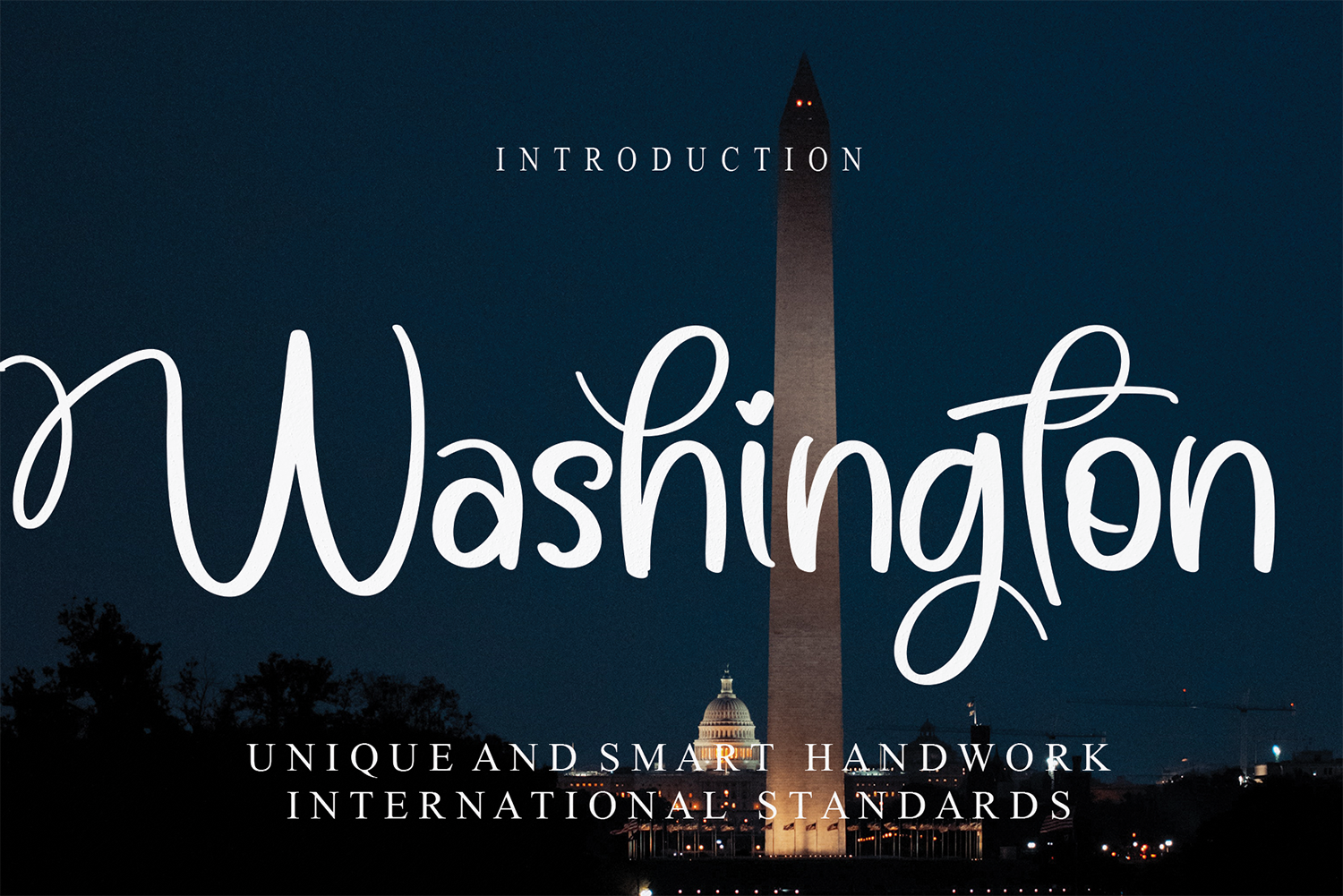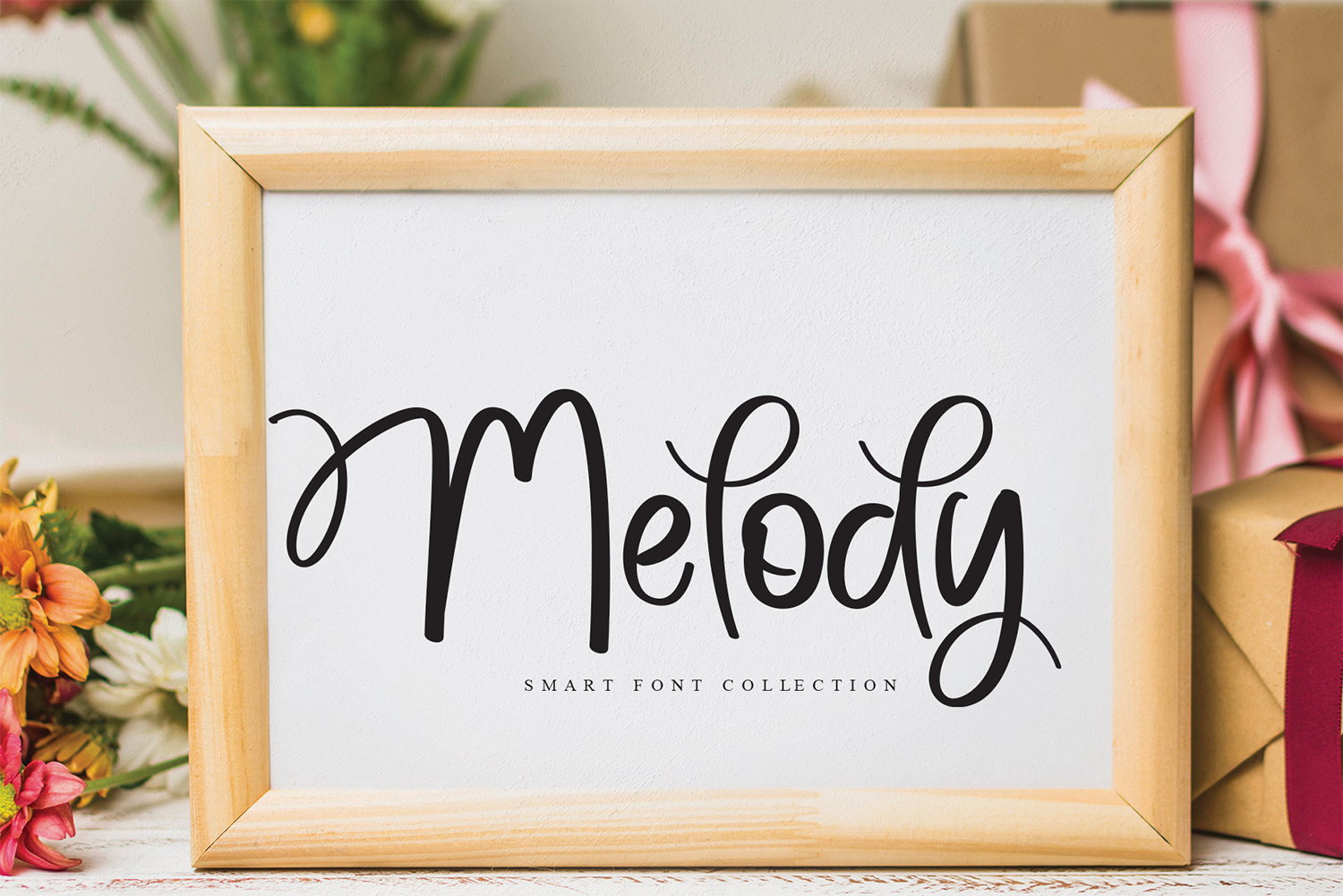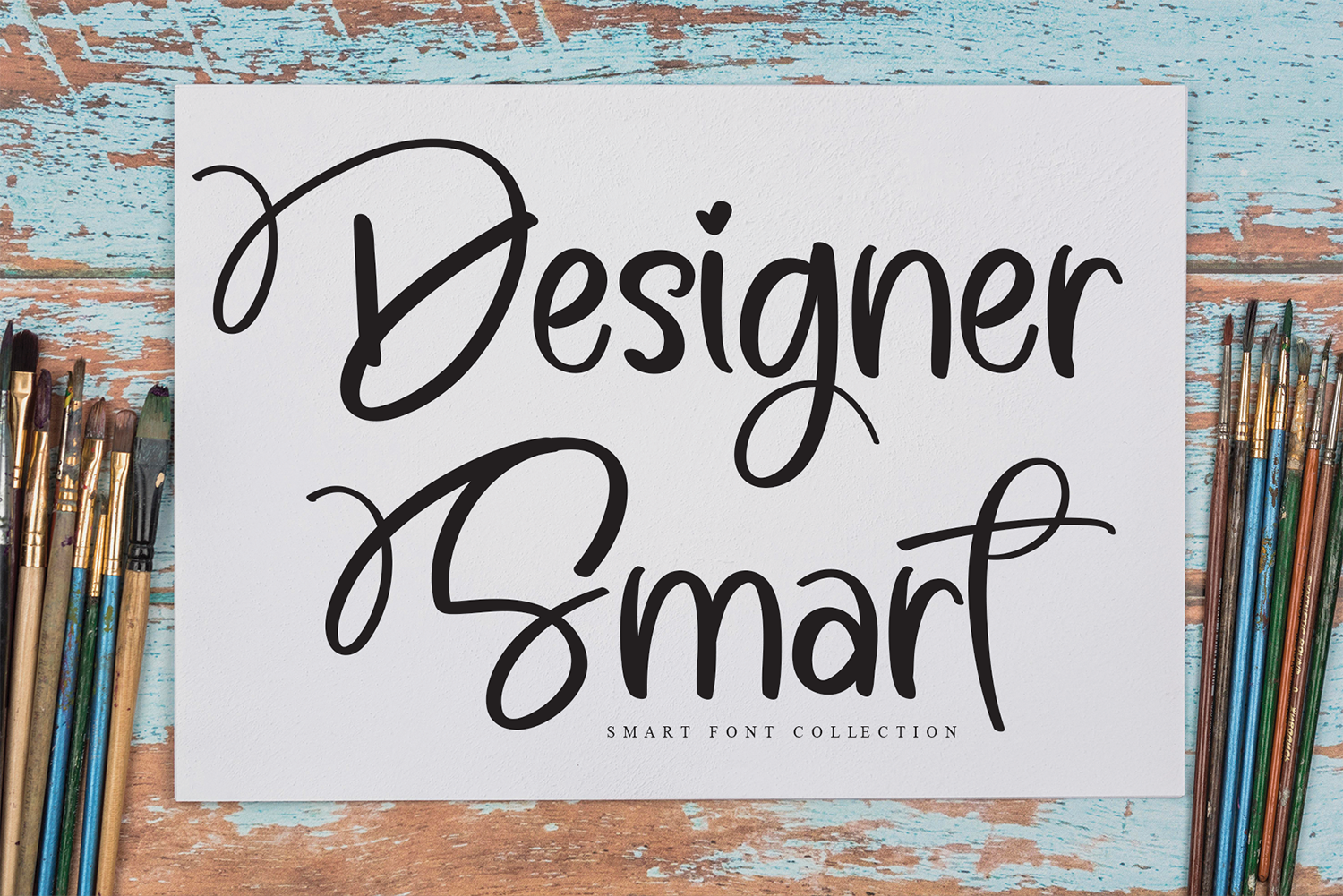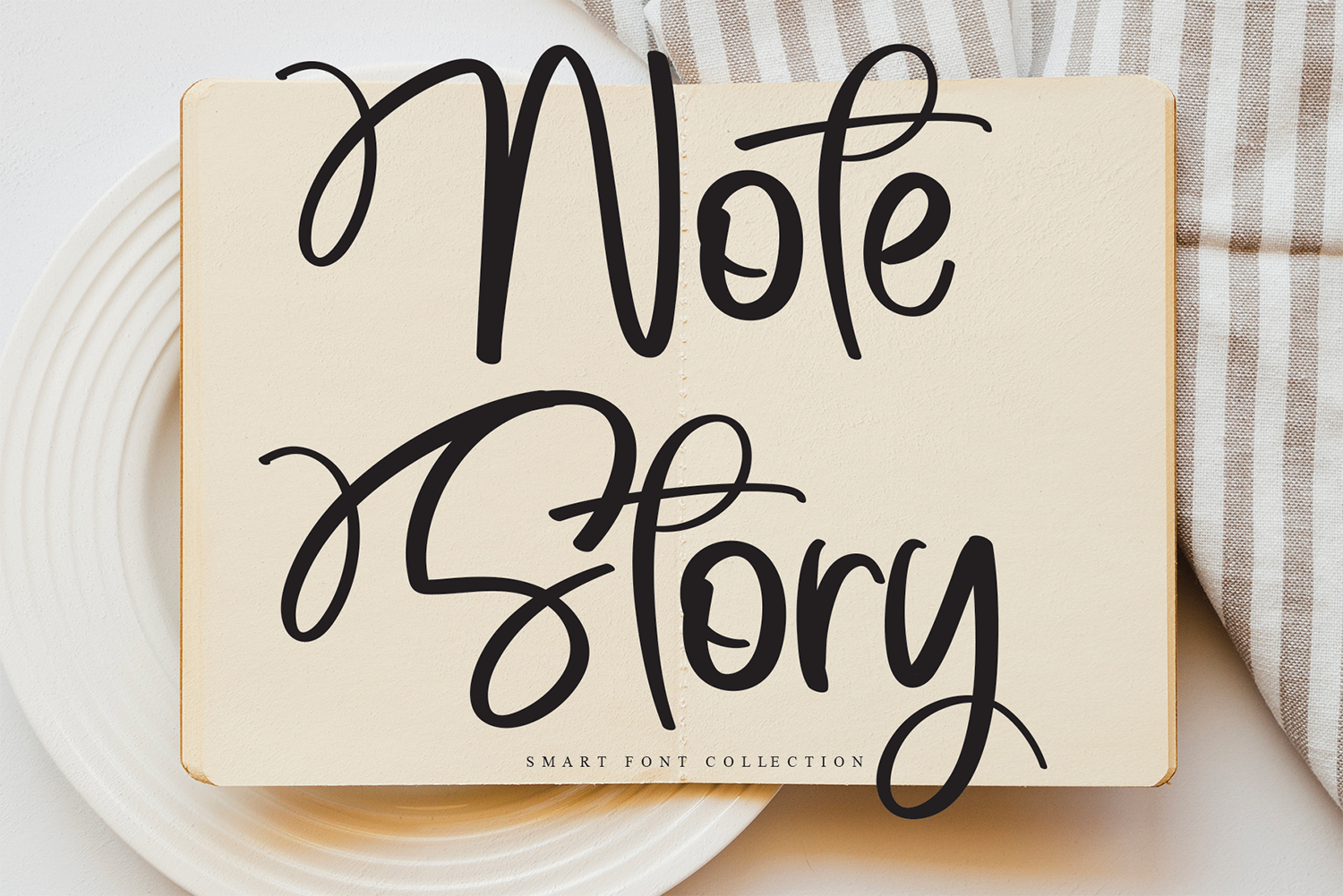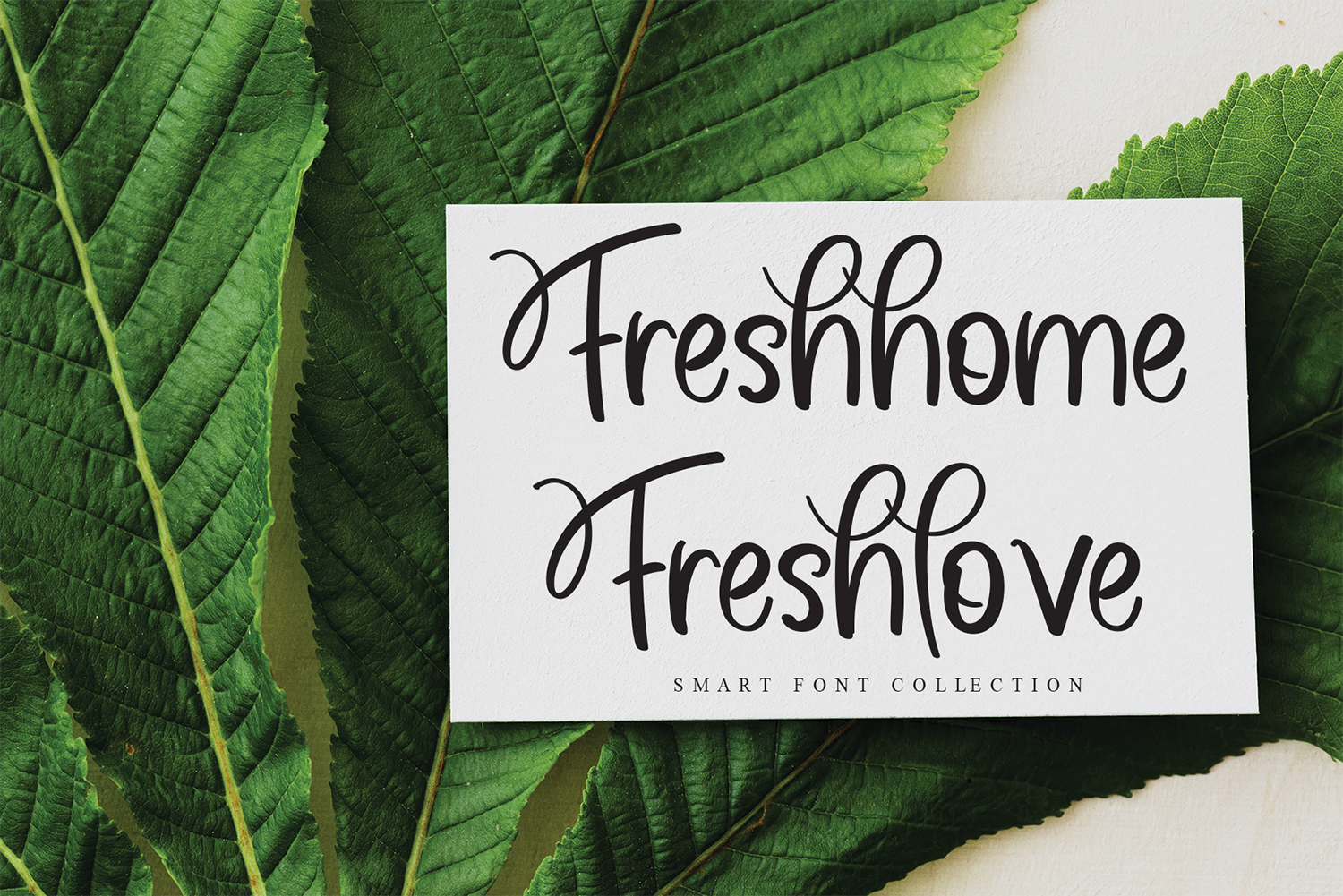
Washington Free Font
Embrace the grace of Washington Free Font is a handwritten font that embodies delicacy and elegance. With its uniquely rounded letters, this font stands as a true work of art. Immerse yourself in its remarkable versatility and employ it to fashion breathtaking designs that leave a lasting impression. This free typeface was designed by a talentedΒ Scratchones Creative. If you like it don’t forget to check out the full version.